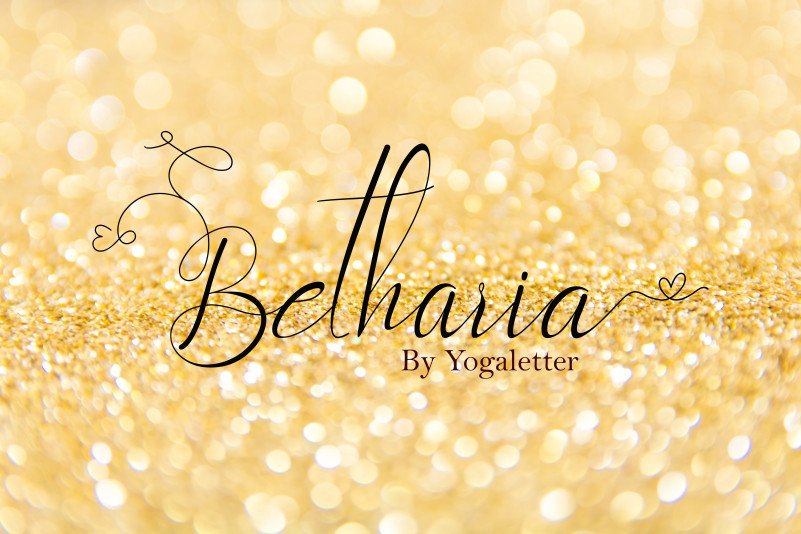
Betharia Modern Calligraphy Font
Betharia Calligraphy Font is a beautiful script that is classy, elegant, and modern. It is perfectly suited for a wide variety of projects! It’s a calligraphy typeface from the designer yogaletter6. This font is a beautiful modern script typeface.